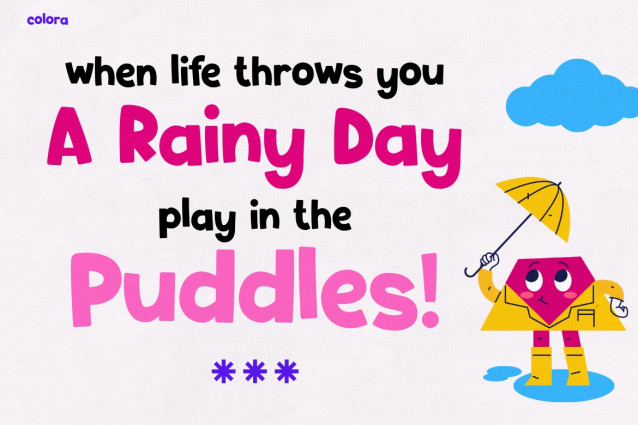
Colora Display Font
Colora Display Font, offers a unique and eye-catching style that instantly adds joy, fun, and vibrant energy to any design. This font stands out because its playful letter shapes and bold, rounded edges radiate positivity. Moreover, every character shows a whimsical aesthetic, so your text looks alive and cheerful. Therefore, whether you design posters, banners, school projects, or digital graphics, COLORA helps your message shine with charm. In addition, its smooth readability makes the font not only attractive but also practical across many creative uses.
Description & Who It’s Perfect For
Kids Font COLORA goes beyond being just a typeface; it works as a storytelling companion. The font reflects childhood wonder and sparks excitement in young audiences. As a result, it fits perfectly for playful branding, educational materials, kids’ apparel, daycare centers, children’s books, birthday invitations, or even classroom decorations. Furthermore, its cheerful curves and bold style encourage imagination, so it captures attention from both kids and adults alike.
This font suits a wide range of creators:
Teachers & Educators can design fun and engaging worksheets, flashcards, or posters with ease.
Children’s Book Authors & Illustrators can enhance their storytelling with letters full of magic.
Brands & Businesses targeting kids and families can brighten their logos, ads, and packaging.
Designers & Creators can add playful personality and color to every project.
Therefore, with COLORA, you don’t just type words—you create joyful experiences that inspire imagination.
Closing Statement
In conclusion, Kids Font COLORA brings brightness and happiness into any design. Its playful style and versatile use let you adapt it to countless creative projects. Moreover, the font ensures your words stand out in a delightful and friendly way. So, if you want your designs to radiate charm, choose COLORA today and let your creativity shine brighter than ever!